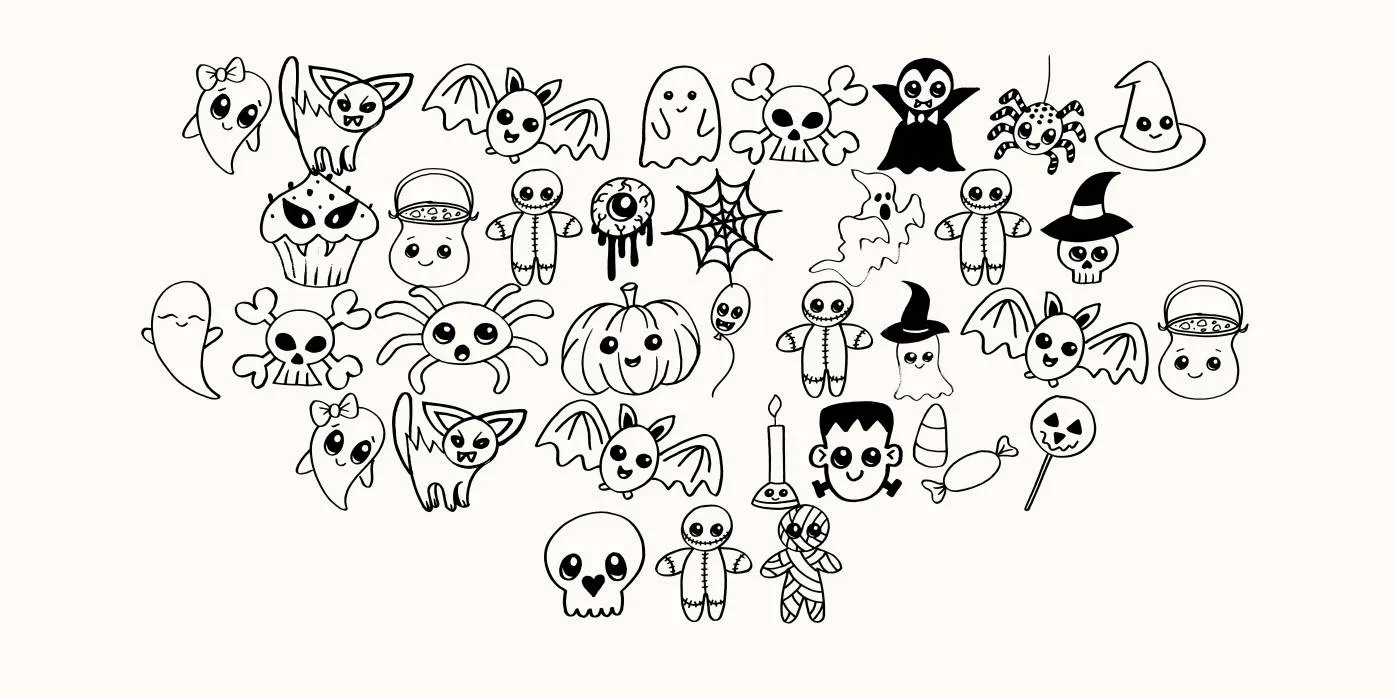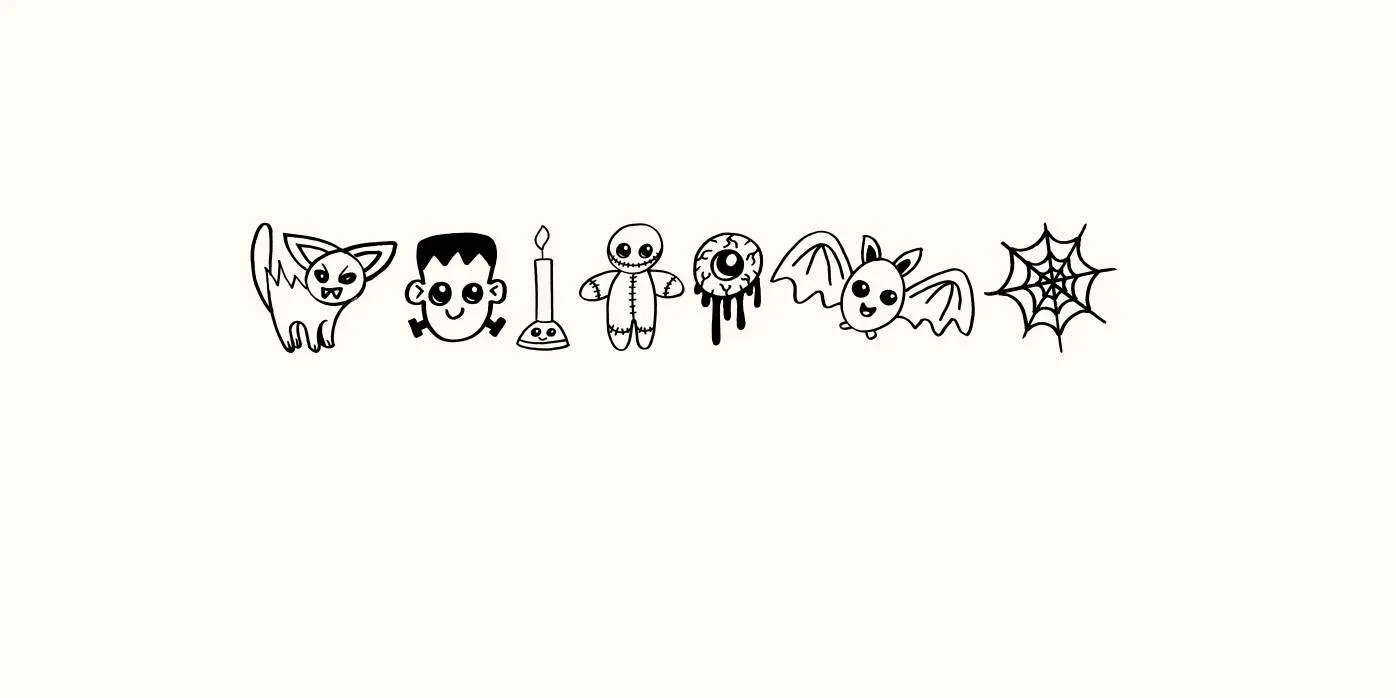
Cute Halloween Drawings Font
We talk about a very interesting font Cute Halloween Drawing font. This stunning font was designed by Jonathan S. Harris. It is a very attractive and scary font and is used on many different events, especially Halloween.
It contains 55 characters, 237 glyphs,s and 2048 units per Em. The weight and the width of the font both are medium (normal). The pattern style of this font is outlined and its pitch is not monospaced. An online generator tool is also available to convert simple text into a stylish look without downloading the font within seconds.
This stunning typeface is inspired by an event Halloween celebrated by Christians. It can not be treated or used like other fonts it is a very different font with lots of emojis. Usage This cute and scary font can be used to design many different projects. It has many features which can be shown in different drawing styles.
It is specially designed for an event Halloween celebrated by Christians. This font has a dingbat and contains many letters. You can see the amazing drawings by using this font. It can be used for making events and celebrations posters.
On Halloween events, you can design themed decorations by using this font. This font can be used to design both types of media print and digital media. You can make prints on clothes and banners at this Halloween party. This font is designed for a specific event or holiday.
This stunning font was designed by Jonathan S. Harris. It is a very attractive and scary font and is used on many different events, especially Halloween. Which font is similar to Cute Halloween Drawings?
It can be paired with other fonts but the most similar font is Charm Holder HT font to give a more attractive look to your projects. What Kind of texture is Cute Halloween Drawings texture? This font belongs to the dingbats category you can see amazing drawings by using this font.